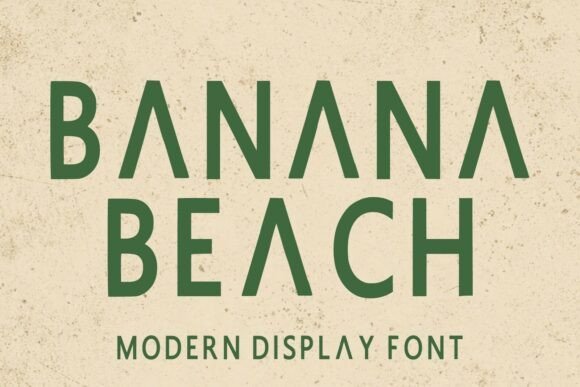
Discover the Tropical Vibes of Banana Beach Font
As a designer, have you ever stared at a blank canvas, struggling to find the perfect font to capture the essence of your project? I know I have. Sometimes, it’s not just about the words, but the feeling they evoke. For me, that feeling is often associated with the sun-kissed beaches, warm breeze, and vibrant colors of a tropical paradise.
That’s where Banana Beach Font comes in – a modern display font designed to transport your audience to a world of relaxation and style. With its clean, bold, and stylish appearance, Banana Beach Font is perfect for branding, posters, logos, packaging, headlines, and modern design projects. Its versatility and professional yet relaxed feel make it an invaluable asset for designers looking to add a touch of tropical charm to their work.
- Unique Characteristics: The font features a unique blend of modern and tropical elements, with distinctive rounded shapes and subtle texture, evoking the feeling of a beachside getaway.
Designer Review: Banana Beach Font
Overall, I think the Banana Beach Font has some great qualities that make it a nice addition to a design project, but it also has some limitations that may hinder its use in certain situations. Let’s dive in and take a closer look.
- ✨ The font’s playful and laid-back vibe is perfect for beach-themed designs or tropical-inspired projects.
- ✨ The font’s unique letterforms and quirky touches give it a lot of character and visual interest.
- ✨ The font is well-suited for use in headings and titles, where its bold and attention-grabbing qualities can really shine.
- ⚠️ The font may be too casual or informal for more formal or professional projects, where a more subdued or traditional font might be a better choice.
- ⚠️ Some of the letterforms may be difficult to read at smaller font sizes or in certain line widths, which could limit its use in certain design contexts.
- ⚠️ The font’s unique character may not be to everyone’s taste, and some designers may find it too busy or distracting.
Overall, I think the Banana Beach Font is a fun and creative addition to any design project that calls for a playful or tropical vibe. However, it’s not a one-size-fits-all solution, and designers should be aware of its limitations before using it in their work.
Tips for Getting the Most Out of Banana Beach Font
For a beach-inspired design, pair the Banana Beach Font with images of palm trees, seashells, or other ocean elements.
Use the font for headings and titles to add a playful touch to your design.
The Banana Beach Font is perfect for:
Beach-themed party invitations and decorations
Summer-themed social media posts and graphics
Beach-inspired logos and branding